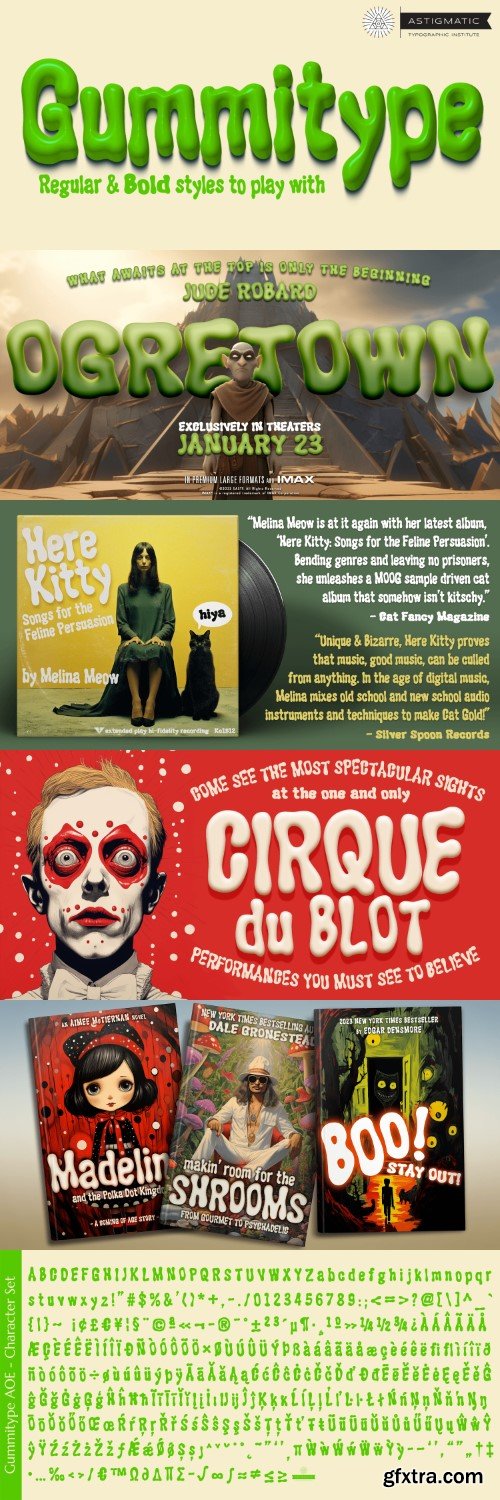
果冻体AOE字体家族
GummiType is a wildly wobbly and clumsy gummy/jelly style letter font. It was inspired by...gummy peach rings! This was a weird typeface that I originally designed back in 2000 but never finished it. Coming across it again recently, I thought it would be a fun font family to get out there. Perfect for a range of designs that require a spooky or gooey-gooey typestyle.